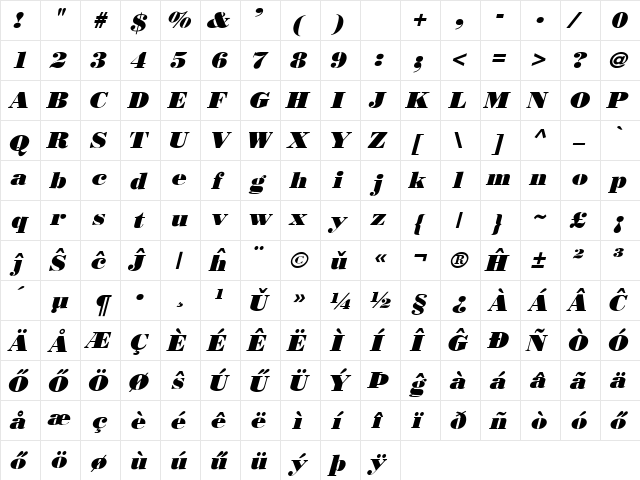
Boden Esperanto Kursiva
Design Context for Boden Esperanto Typeface
Boden Esperanto takes a measured approach to typography — its balanced proportions and neutral character make it a reliable workhorse for both digital and print work. The slanted form adds forward momentum and visual energy.
Pro Tip: Try Boden Esperanto for annotation and caption copy alongside an upright companion — the contrast in angle creates a dynamic but ordered typographic system.